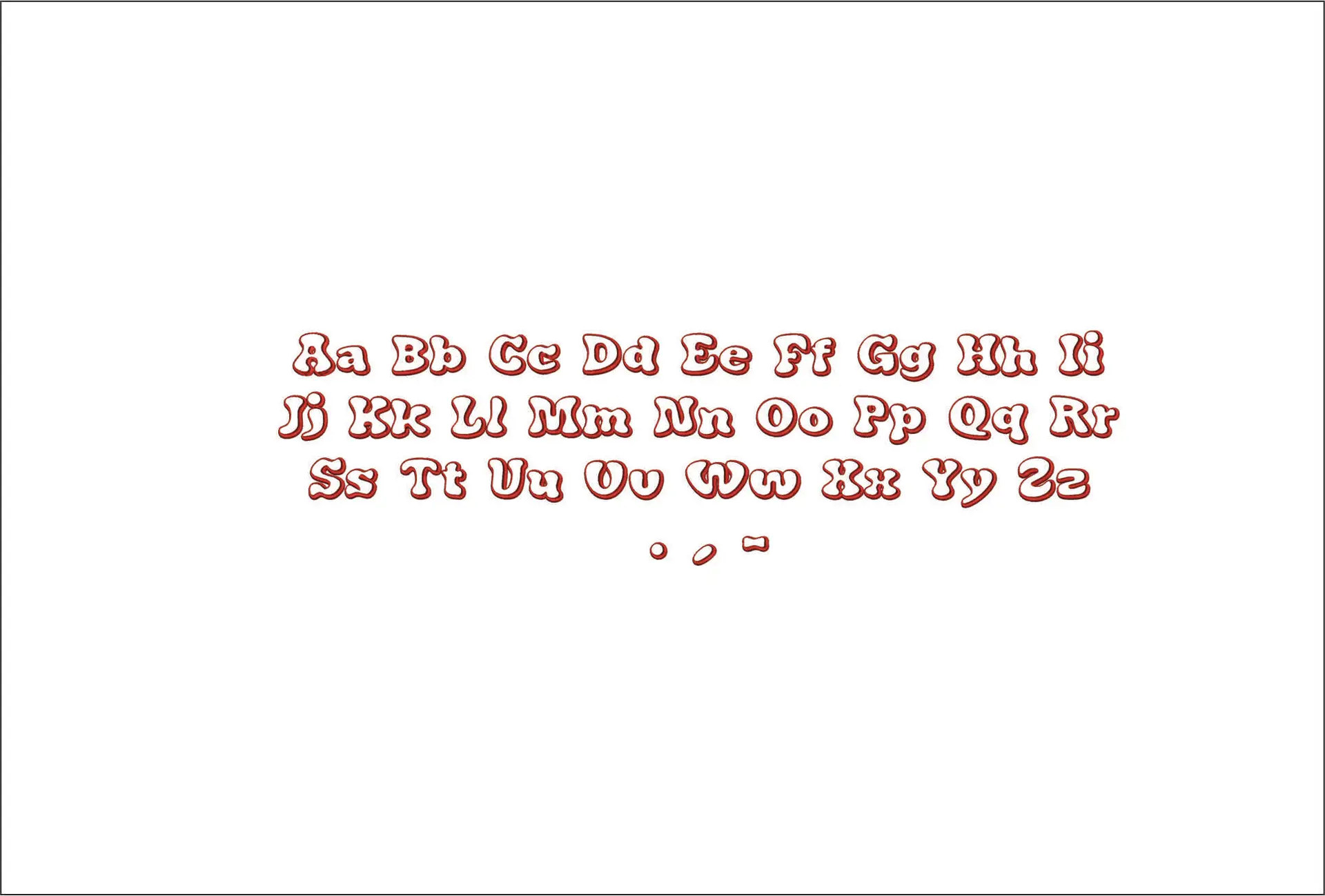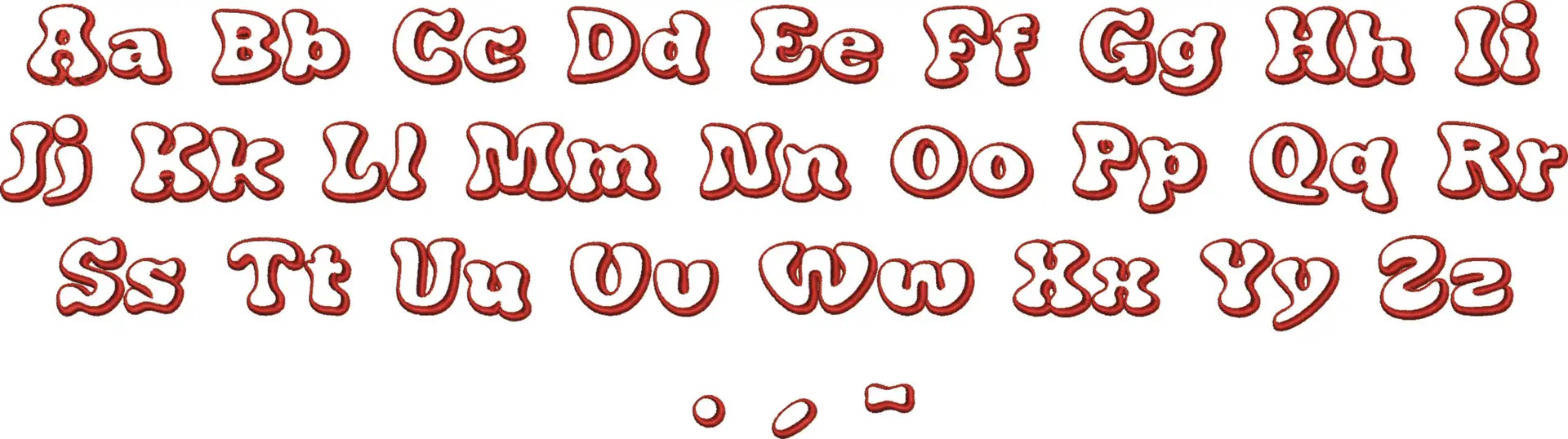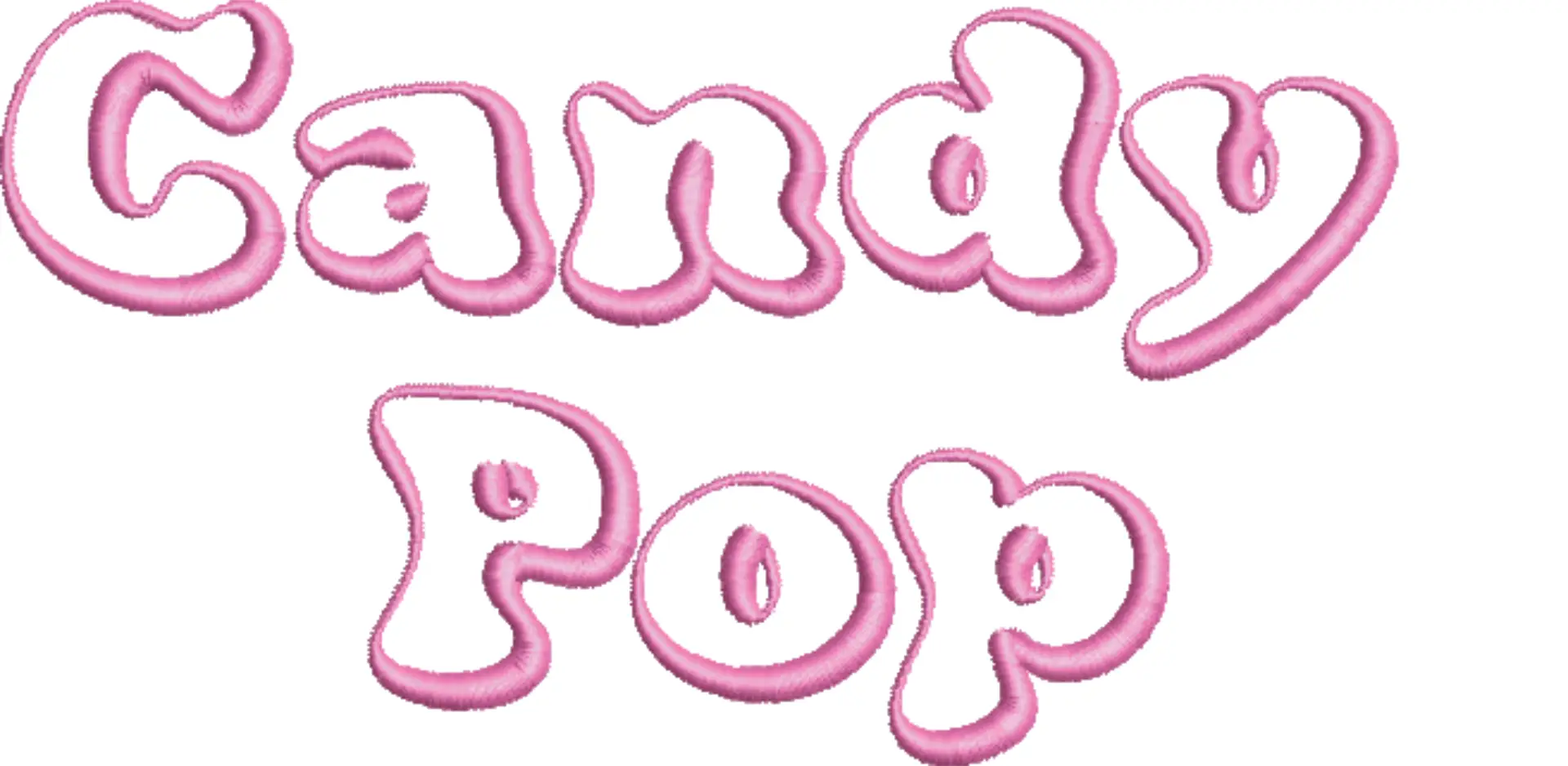
Soft, rounded bubble letters that give names, nicknames and short phrases a cheerful candy-shop look.
Add sweet bubble style to names, nicknames and playful wording with this Candy Pop embroidery font set. The letters are drawn with a rounded outline that gives each character a puffy, cheerful look, shown here in pink, red and white for a classic sweet-shop feel. It suits anyone personalising children’s clothing, birthday pieces or bright everyday accessories and wanting lettering that feels friendly rather than formal.
This alphabet would look especially good across sweatshirt fronts, on the pocket area of denim jackets, on canvas totes, pyjama bags and cosmetic pouches. The bold, curved shapes help short words and initials stand out clearly on plain fabrics, especially where you want a soft, fun finish instead of sharp block lettering. With uppercase, lowercase and simple punctuation included, it works neatly for names, little phrases and dates without losing that bouncy Candy Pop character.